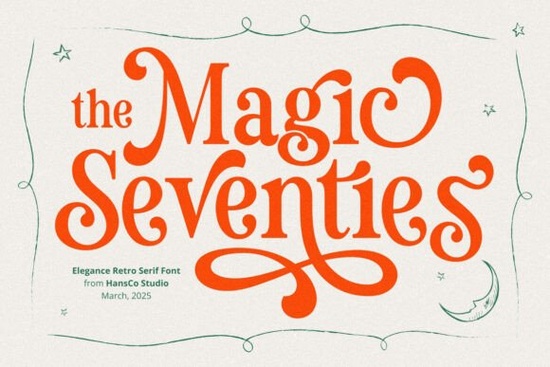
If you're looking for a display serif font that blends retro charm with modern elegance, the Magic Seventie Font is worth a closer look. Designed with soft curves, graceful swashes, and a distinctly feminine flair, it captures the spirit of 1970s typography while feeling fresh enough for today’s branding needs. Whether you’re creating logos, packaging, posters, or craft projects, this font adds personality without sacrificing sophistication.
What makes Magic Seventie stand out from other serif fonts?
Unlike traditional serifs that lean formal or minimal, Magic Seventie leans into expressive details. Every character includes subtle swash elements especially in uppercase letters that give your text a handcrafted, flowing quality. It’s not just decorative; it’s functional for visual storytelling. The font works especially well when you want your brand to feel warm, nostalgic, and uniquely yours.
For small businesses and print-on-demand sellers, that kind of distinctiveness matters. In a crowded marketplace, using a font like Magic Seventie can help your product labels, social graphics, or merchandise stand out without needing complex illustrations or effects.
Who should consider using this font?
This font shines for creators who value both aesthetics and authenticity:
- Logo designers seeking a memorable logotype with vintage appeal
- Crafters making greeting cards, wall art, or wedding stationery
- Small business owners building a brand identity around warmth and femininity (think boutiques, bakeries, or wellness brands)
- Print-on-demand sellers designing mugs, tote bags, or apparel with retro-inspired quotes
If your project calls for something more expressive than Helvetica but less ornate than script fonts, Magic Seventie strikes a thoughtful balance.
How does it compare to similar serif fonts on Creative Fabrica?
Creative Fabrica offers several elegant serif options, each with its own mood. For example, Gidora leans more geometric and contemporary, ideal for clean, modern branding. Meanwhile, Mistory brings high-contrast strokes and delicate terminals perfect for luxury or editorial use.
If you enjoy the swash-heavy style of Magic Seventie but want something slightly bolder, Rainfolk offers dramatic flourishes with a more rustic edge. All these fonts serve different creative needs, but Magic Seventie stands out for its smooth, flowing rhythm and 70s-inspired softness.
Tips for using Magic Seventie effectively
Because of its decorative nature, this font works best as a headline or accent not for body text. Here’s how to get the most out of it:
- Pair it wisely. Combine Magic Seventie with a simple sans-serif (like Montserrat or Lato) to let the font shine without overwhelming your layout.
- Use generous spacing. Slightly increase letter-spacing to enhance readability and highlight those swash details.
- Limit usage to key elements. Stick to logos, titles, or short phrases its charm fades if overused.
- Test at different sizes. Some swashes may become too intricate at small scales, so preview your design in real-world contexts (like a product mockup).
Before adding Magic Seventie to your toolkit, ask yourself:
- Does my brand or project benefit from a soft, retro-feminine aesthetic?
- Will I use it primarily for headlines, logos, or decorative text?
- Have I considered pairing fonts that won’t compete with its swashes?
If you answered “yes” to most of these, Magic Seventie could be a natural fit. And if you’re still exploring, browsing related fonts like this one alongside others in the serif collection can help you find the perfect match for your creative voice.